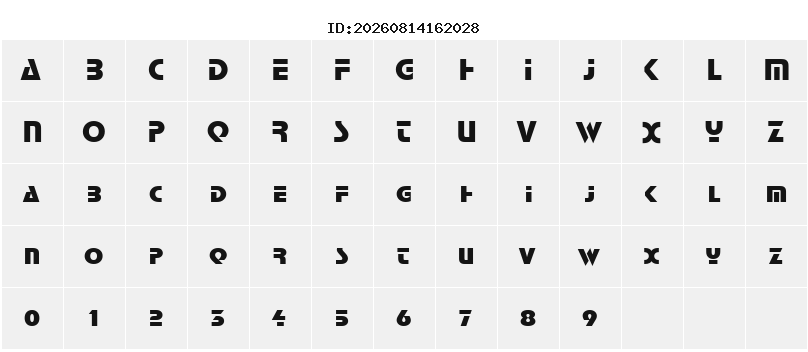
• Font Name: StopSCD
• Full Font Name: StopSCD
• PostScript Name: StopSCD
About StopSCD.ttf
StopSCD.ttf is a modern, elegant sans-serif font designed for ultimate readability and visual harmony. Perfect for branding, headlines, web design, and print materials.